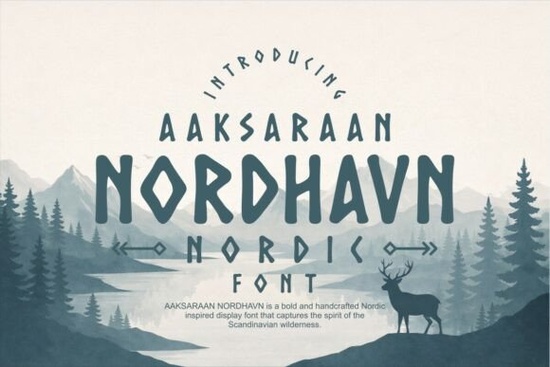
If you're looking for a font that embodies the rugged and natural beauty of the Scandinavian wilderness, Aaksaraan Nordhavn Font is a great choice. This bold and handcrafted display font captures the essence of Nordic design with its distinctive geometric shapes, rounded edges, and handcrafted details. It's perfect for projects that need a touch of adventure, authenticity, and timelessness.
Why Choose Aaksaraan Nordhavn for Your Design Projects?
Aaksaraan Nordhavn stands out with its strong letterforms, making it ideal for branding, packaging, apparel, posters, book covers, signage, and more. Its unique visual identity brings a powerful Nordic atmosphere to every design, whether you're working on a Viking-themed project or something with a more subtle, outdoor-inspired aesthetic.
How Can Aaksaraan Nordhavn Enhance Your Branding?
When it comes to creating a brand that feels authentic and adventurous, Aaksaraan Nordhavn can be a valuable asset. The font's bold and handcrafted style adds a sense of heritage and craftsmanship to your designs, making them stand out. Whether you're designing a logo for a new outdoor gear company or creating a poster for a folk festival, this font can help you achieve the right look and feel.
What Makes Aaksaraan Nordhavn Unique?
The combination of geometric shapes and rounded edges in Aaksaraan Nordhavn creates a unique and memorable visual impact. These elements work together to give the font a balanced and harmonious appearance, while the handcrafted details add a personal touch. This blend of modern and traditional design elements makes Aaksaraan Nordhavn versatile and appealing for a wide range of creative projects.
How to Use Aaksaraan Nordhavn in Different Design Contexts
Here are some practical ways to use Aaksaraan Nordhavn in your design projects:
- Logos: Create a strong and memorable brand identity with the bold and distinctive letterforms.
- Packaging: Add a touch of Nordic charm to product packaging, especially for items related to the outdoors or heritage.
- Apparel: Design t-shirts, hoodies, and other clothing items with a unique and adventurous look.
- Posters: Make eye-catching posters for events, promotions, or just for decorative purposes.
- Book Covers: Give your books a rustic and authentic feel, perfect for genres like fantasy, adventure, or historical fiction.
- Signage: Use the font for signs that need to be both readable and visually striking, such as for a local business or event.
Complementary Fonts to Pair with Aaksaraan Nordhavn
To create a well-rounded and cohesive design, consider pairing Aaksaraan Nordhavn with complementary fonts. Here are a few options:
- Kafu Font: A clean and modern sans-serif that can provide a nice contrast to the boldness of Aaksaraan Nordhavn.
- Goodwin Font: A versatile serif font that can add a touch of elegance and sophistication to your designs.
- Varsity Texture Font: A textured and sporty font that can complement the rugged and adventurous feel of Aaksaraan Nordhavn.
- Digital Match Font: A futuristic and tech-inspired font that can add a modern twist to your designs.
- Main Street Traffic Font: A playful and casual font that can bring a fun and friendly vibe to your projects.
Practical Tips for Using Aaksaraan Nordhavn Effectively
Here are some tips to help you get the most out of Aaksaraan Nordhavn in your designs:
- Test Different Sizes: Experiment with different font sizes to find the best fit for your project. Aaksaraan Nordhavn works well in both large and small sizes, but testing will help you find the perfect balance.
- Use White Space Wisely: Balance the boldness of the font with appropriate white space to make your designs more readable and visually appealing.
- Combine with Other Elements: Integrate Aaksaraan Nordhavn with other design elements like textures, illustrations, and colors to create a rich and layered look.
- Consider the Context: Think about the overall theme and purpose of your project. Aaksaraan Nordhavn is versatile, but it works best when it aligns with the intended message and aesthetic.
By following these tips, you can effectively use Aaksaraan Nordhavn to enhance your designs and create a strong, authentic, and timeless visual identity. Whether you're a designer, crafter, print-on-demand seller, small business owner, or creative hobbyist, this font can be a valuable addition to your toolkit.